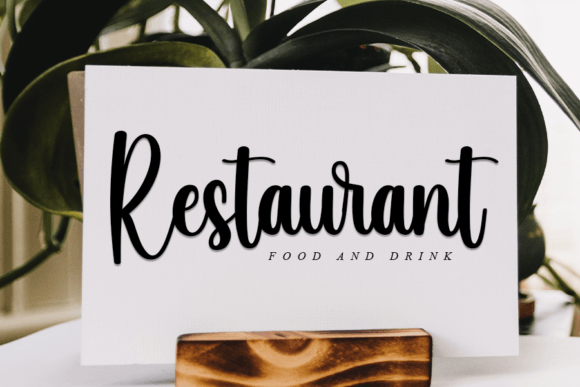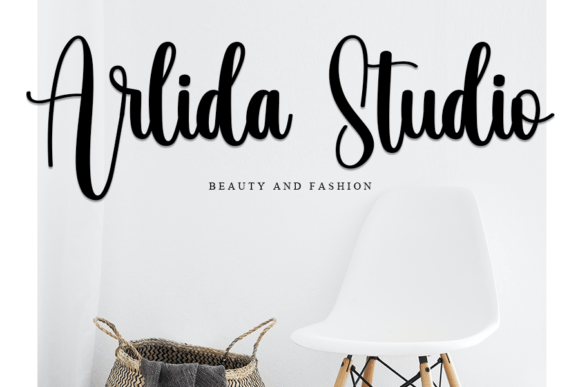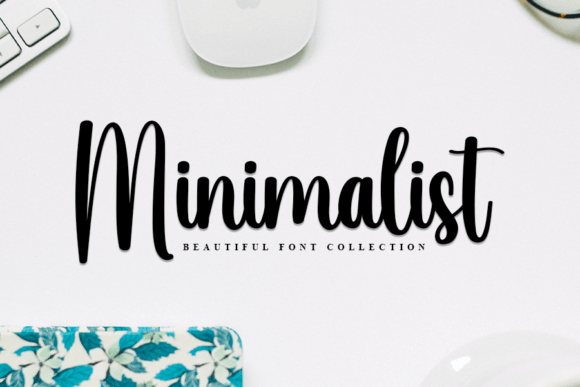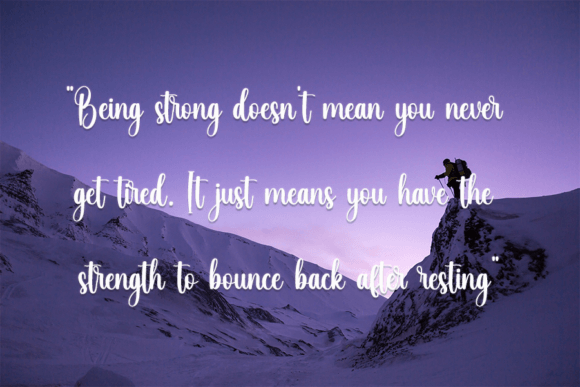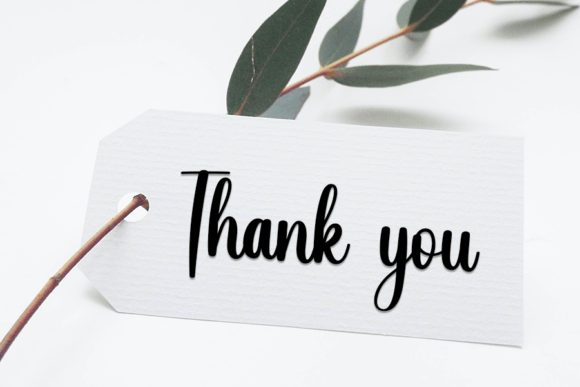
Introducing Cutting Edge Typography: The Cutting Font
In the realm of typography, fonts play a pivotal role in conveying messages, evoking emotions, and enhancing visual appeal. Among the myriad of fonts available, the Cutting Font stands out as a versatile and modern handwritten font that has captured the hearts of designers, crafters, and digital artists alike. With its unique charm and flexibility, Cutting Font is poised to become your go-to choice for a wide array of projects, from crafts and digital designs to presentations and greeting cards.
The Essence of Cutting Font
Cutting Font is a cool and modern handwritten font that exudes a sense of freshness and creativity. Its design is characterized by fluid strokes, varying line widths, and a friendly demeanor, making it exceptionally approachable and engaging. This font is meticulously crafted to bring a personal touch to any project, making it an ideal choice for those looking to infuse their work with a bit of personality and warmth.
One of the key advantages of Cutting Font is its incredible versatility. Whether you’re working on a craft project, designing a digital masterpiece, creating a compelling presentation, or crafting the perfect greeting card, this font adapts seamlessly to any occasion. Its adaptability stems from its clean, readable design and the ability to convey a wide range of emotions, from casual and playful to elegant and sophisticated.
Applications of Cutting Font
- Crafts: For crafters, Cutting Font offers a unique way to add personalized touches to handmade projects. Whether it’s a scrapbook, a DIY greeting card, or a customized piece of home decor, this font brings a modern and stylish flair.
- Digital Design: In the digital realm, Cutting Font can elevate your designs, making them more engaging and visually appealing. It’s perfect for blog headers, social media graphics, and website content.
- Presentations: Adding a touch of personality to presentations can make them more impactful. Cutting Font can help you create titles, headings, and even body text that captures your audience’s attention.
- Greeting Cards: For those special occasions, Cutting Font allows you to create heartfelt and stylish greeting cards that are sure to leave a lasting impression.
Why Choose Cutting Font?
There are several reasons why Cutting Font should be your top choice for typography needs:
- Uniqueness: It offers a fresh and modern look that sets it apart from more traditional fonts.
- Legibility: Despite its artistic nature, Cutting Font remains highly legible, making it suitable for both headings and body text.
- Emotional Connection: Its friendly and approachable vibe helps create an emotional connection with the reader.
- Versatility: It can be used across various platforms and projects, making it a valuable addition to your font library.
Tips for Using Cutting Font Effectively
To maximize the impact of Cutting Font, consider the following tips:
- Mix and Match: Combine Cutting Font with other fonts to create visual interest and hierarchy in your designs.
- Play with Sizes: Use varying font sizes to emphasize certain parts of your text and create a dynamic layout.
- Color Matters: Choose colors that complement the tone of your project and the personality of Cutting Font.
Cutting Font is more than just a typeface; it’s a tool for creativity and self-expression. Its modern, handwritten aesthetic makes it an excellent choice for designers, crafters, and anyone looking to add a personal touch to their projects. With its versatility, legibility, and emotional appeal, Cutting Font is set to become an indispensable part of your creative toolkit. So, go ahead and explore the possibilities that Cutting Font has to offer, and take your designs to the next level.